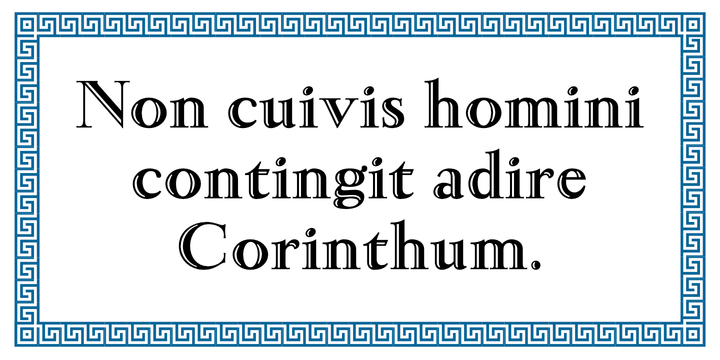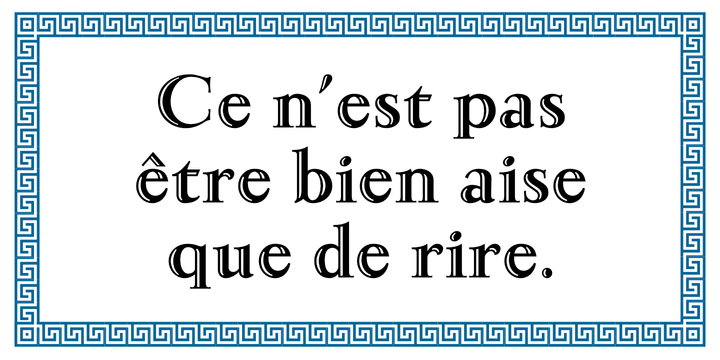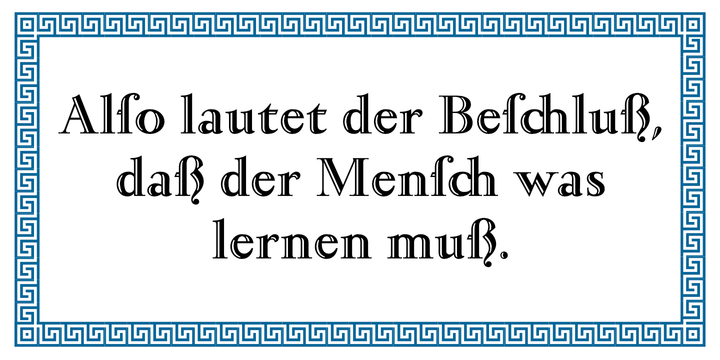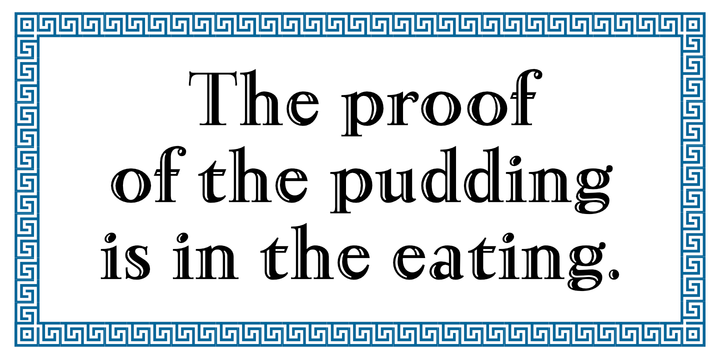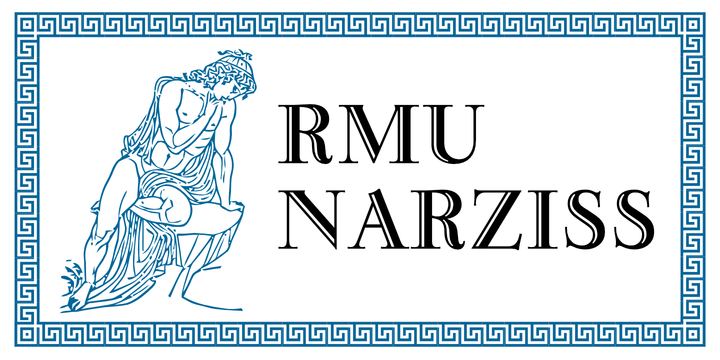
In 1921 the Klingspor foundry released Walter Tiemanns Narziss. This beautiful and elegant font was completely redrawn and redesigned and extended to cover major European languages East and West.
The font contains also a 'long s and related useful ligatures which can be reached by using the OpenType features historical letters and historical ligatures.